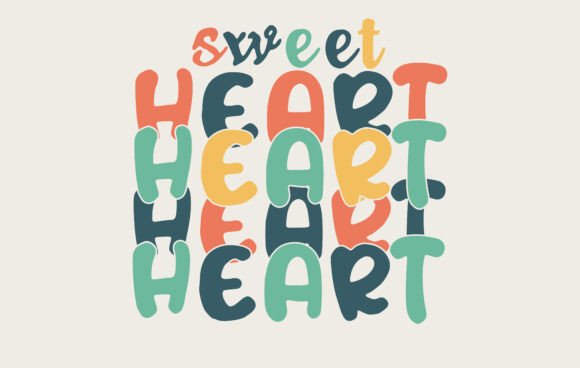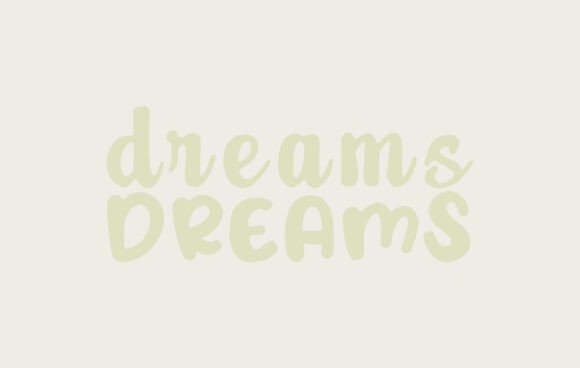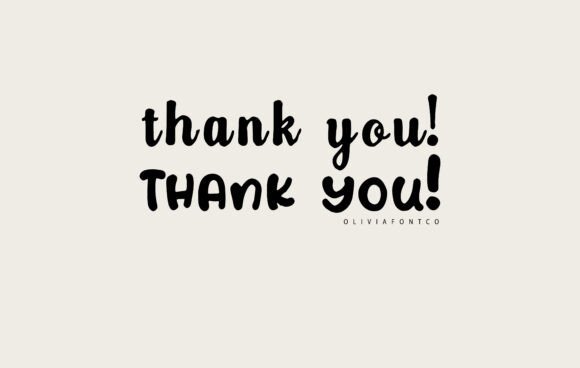
Unleash Your Creativity with Endless Dreams Font
Are you a designer, crafty person, or creative enthusiast looking for the perfect font to elevate your projects? Look no further than the Endless Dreams Font, expertly designed to be a true favorite among designers and crafters alike. This versatile font is legible, visually stunning, and perfect for a wide range of applications, from magazine headlines to social media graphics, t-shirts, branding, wedding invitations, cards, and more.
What Makes Endless Dreams Font So Special?
The Endless Dreams Font is more than just a pretty face – it’s a carefully crafted typeface designed to help you take your creative ideas to the highest level. Its clean lines, elegant curves, and perfect balance of style and legibility make it an ideal choice for both title and body text. Whether you’re working on a professional project or a personal passion project, this font is sure to impress.
Endless Possibilities with Endless Dreams Font
One of the best things about the Endless Dreams Font is its incredible versatility. This font can be used in a wide range of design applications, including:
- Magazine headlines: Add a touch of elegance and sophistication to your magazine layouts with this stunning font.
- T-shirts: Create eye-catching and stylish apparel with this highly legible and visually appealing font.
- Social media graphics: Elevate your social media presence with professional-looking graphics that showcase your brand’s personality.
- Branding: Establish a strong brand identity with a font that’s both unique and memorable.
- Wedding invitations: Add a touch of romance and whimsy to your wedding stationery with this beautiful font.
- Cards: Create stunning greeting cards, invitations, and more with this versatile typeface.
Why Designers and Crafters Love Endless Dreams Font
So, what sets the Endless Dreams Font apart from other fonts on the market? Here are just a few reasons why designers and crafters love this amazing typeface:
- Legibility: This font is highly legible, even at small sizes, making it perfect for body text and captions.
- Style: The Endless Dreams Font has a unique and stylish aesthetic that’s sure to elevate your designs.
- Flexibility: This font can be used in a wide range of design applications, from digital projects to print materials.
Tips and Tricks for Getting the Most Out of Endless Dreams Font
To help you get the most out of the Endless Dreams Font, here are a few tips and tricks to keep in mind:
- Experiment with different sizes: This font looks great at a wide range of sizes, from large headlines to small body text.
- Play with color: The Endless Dreams Font looks stunning in a variety of colors, from bold and bright to subtle and pastel.
- Mix and match: Combine the Endless Dreams Font with other fonts to create unique and eye-catching designs.